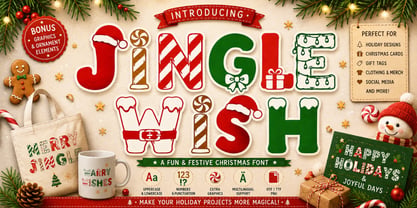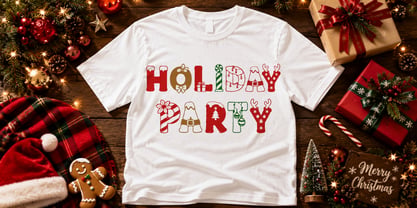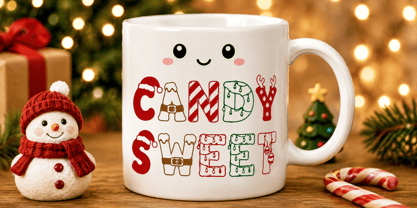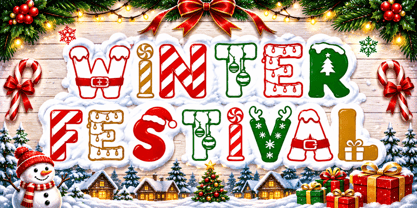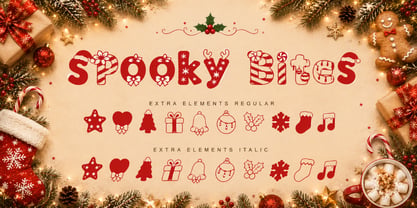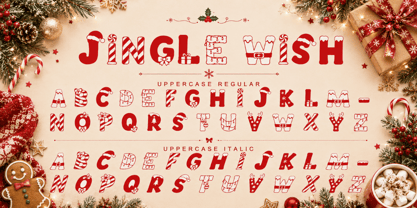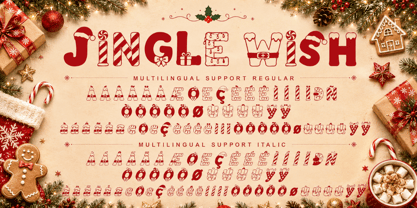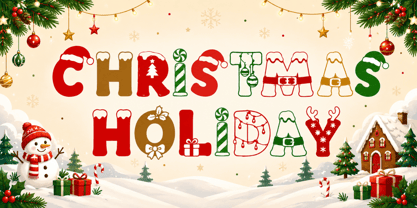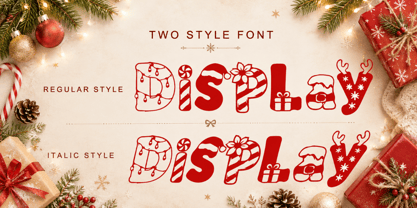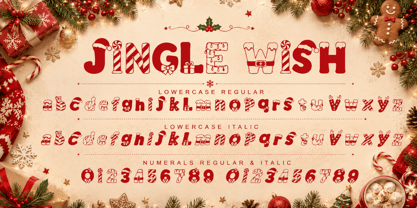
Jingle Wish
La familia tipográfica Jingle Wish fue diseñada por Isroni Yoga Prasetya y publicada por Yoga Letter. Jingle Wish contiene 2 estilos y opciones de paquete familiar. Más información sobre esta familia
Jingle Wish is a cheerful and festive Christmas font designed to infuse holiday joy into a wide range of creative projects. With its playful candy-cane stripes, Santa-inspired details, and vibrant red-and-green color palette, this font beautifully captures the enchanting spirit of the holiday season. Its bold yet distinctive style makes it an ideal choice for Christmas cards, gift tags, apparel, posters, crafts, and social media designs. Jingle Wish is equipped with uppercase and lowercase letters, numbers, punctuation, multilingual support, and festive graphic elements, adding a magical touch to all your holiday creations.